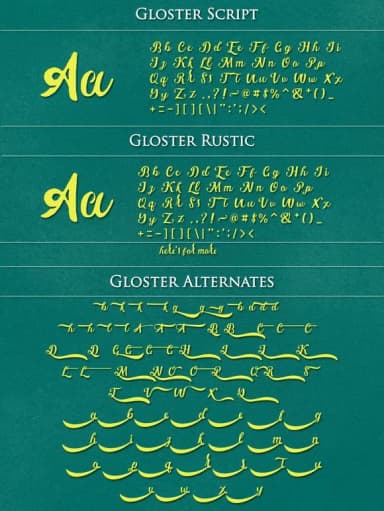
About Gloster Font
Gloster by ndroadvertising is a contemporary handwritten script that infuses creative projects with authentic character and refined elegance. The typeface captures the essence of genuine penmanship, with flowing letterforms and subtle variations that signal handwritten source material rather than digital construction. Each stroke exhibits the natural rhythm and organic warmth that distinguishes authentic scripts from mechanical typefaces, making every application feel genuinely personal and intimate. This script excels in luxury brand identity systems, wedding invitation suites, boutique cosmetics packaging, and artisanal product label design. Whether you're designing personalized wedding menus and sophisticated invitations, creating social media quote graphics and typography overlays, crafting handmade product tags and labels for craft vendors, or developing small business branding materials, Gloster brings deliberate personality and warmth to each application. The typeface maintains legibility and professional polish across all contexts, from digital platforms and social media to printed stationery, premium packaging systems, and physical signage. Designers building distinctive brand identities, small business owners launching premium product packaging, and creative professionals developing special event materials all benefit from Gloster's authentic appeal and versatility. The typeface offers the personality that premium brands demand while remaining accessible to independent makers and entrepreneurs. Discover Gloster Font on Creative Fabrica and integrate this distinctive script into your design toolkit.
Gloster Font is a script font that shines as a display or heading face. Pair it with a clean sans-serif or serif font for body text β the contrast creates a clear hierarchy while the two styles stay balanced and easy to read.